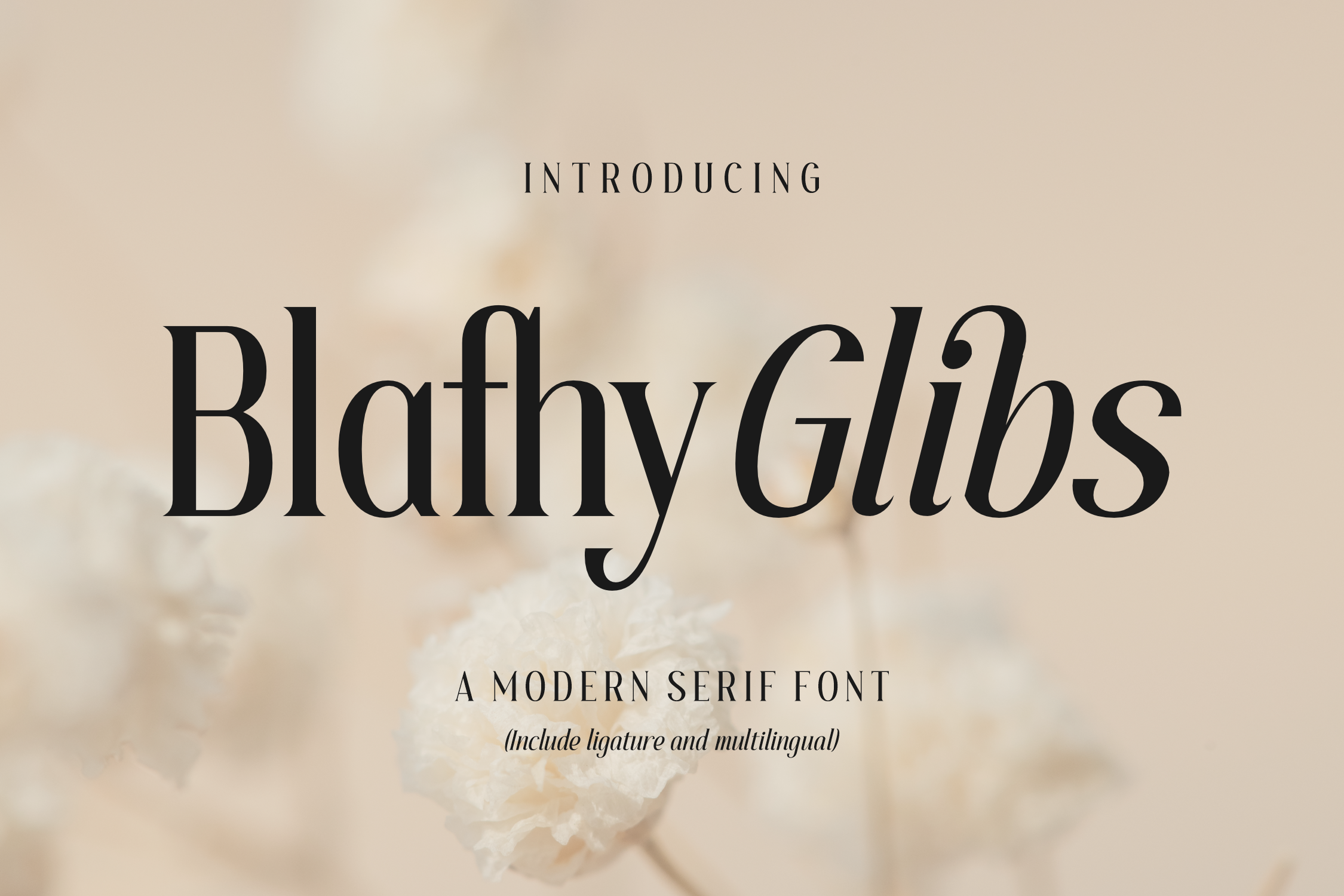
Blafhy Glibs A Modern Serif Font
Proudly present Blafhy Glibs Typeface , created by Storytype, A serif modern and classic typeface that has own unique style & modern look. This typeface is perfect for an elegant & luxury logo, book or movie title design, fashion brand, magazine, clothes, lettering, quotes, and so much more.